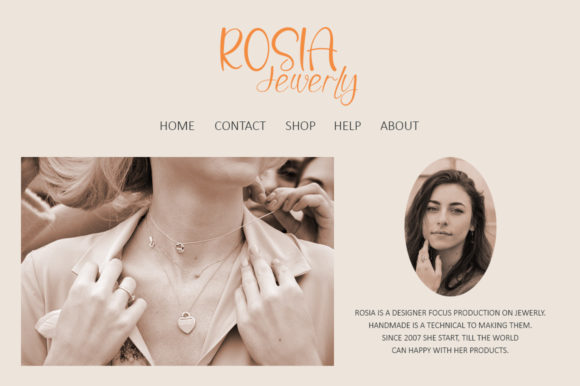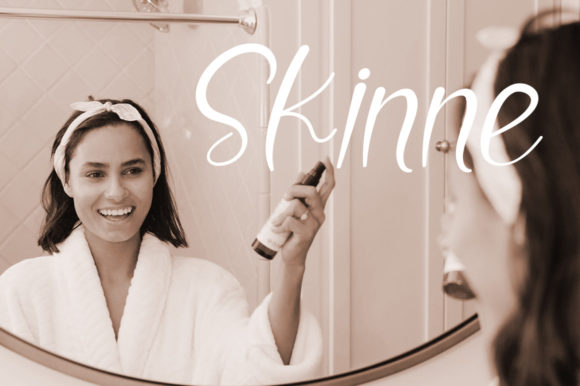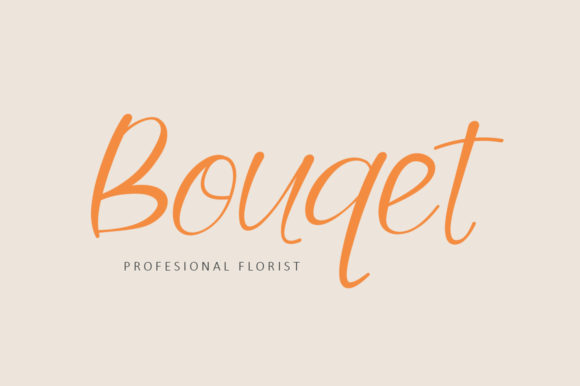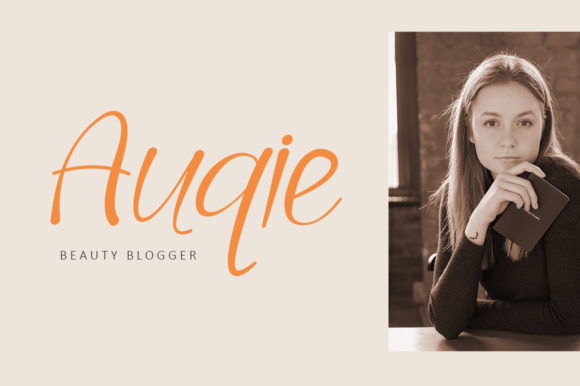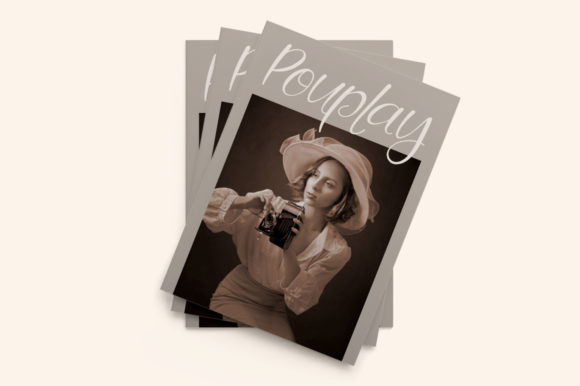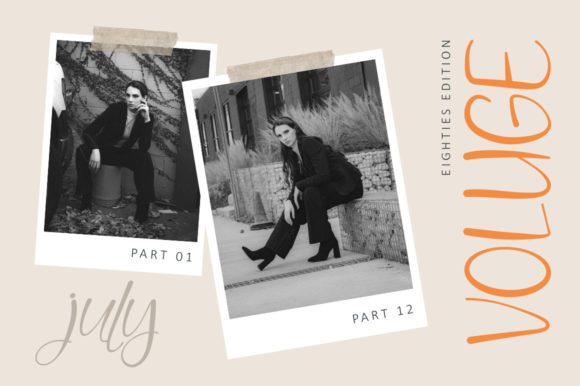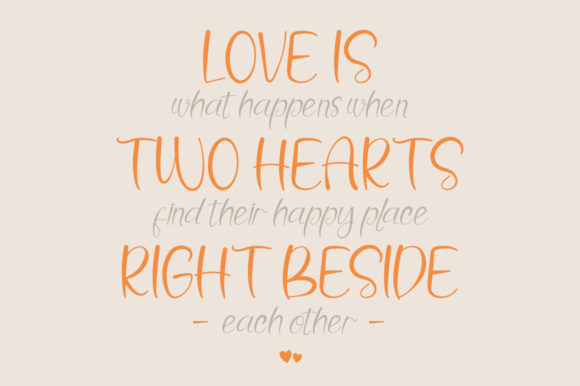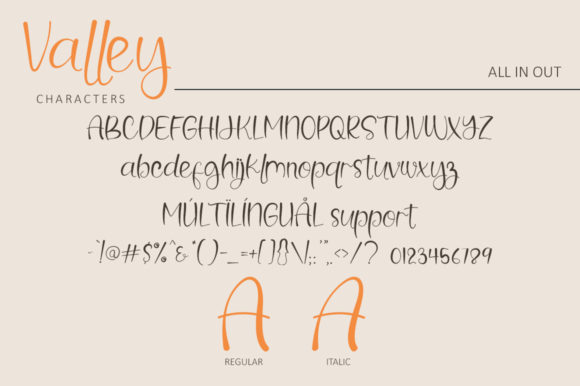
Valley Font
About Valley Font
Valley is a lovely script font featuring charming, playful characters that seem to dance along the baseline. Add this font to your most creative ideas, and notice how it makes them stand out!